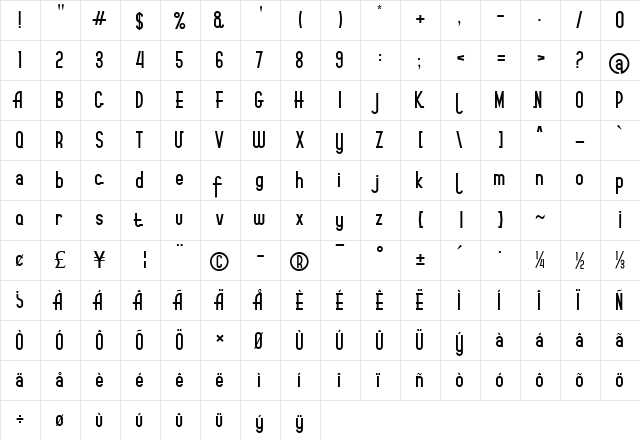
starblack Regular
| Designer | Kapri Prianto (NeutroneLabs) |
Design Context for starblack Typeface
starblack is a composed and adaptable typeface that performs quietly and consistently across a wide range of design contexts.